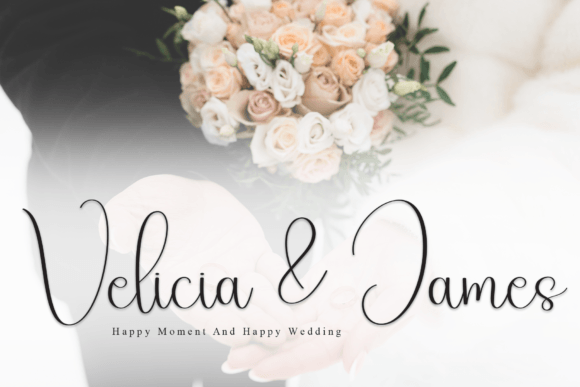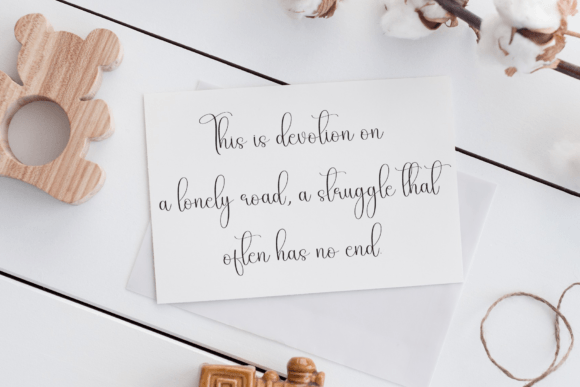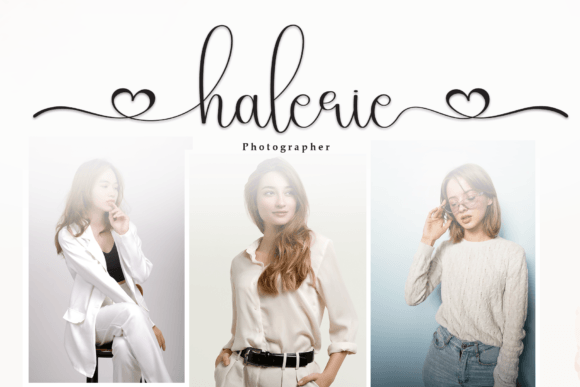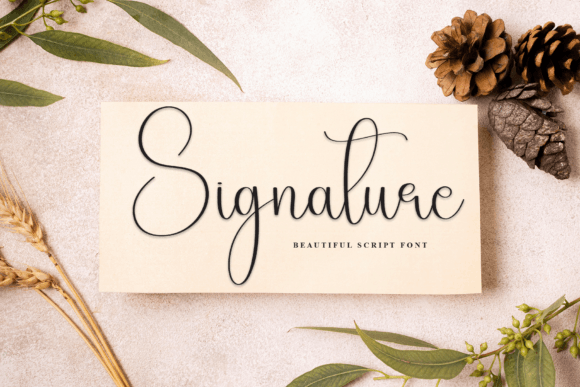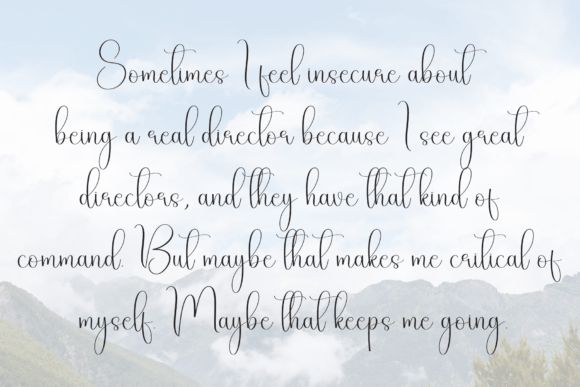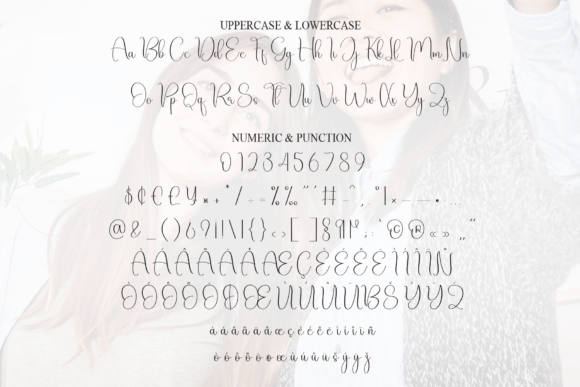
The Bestie Font: Elevate Your Designs with Elegance and Charm
Have you ever been in the middle of a design project, and suddenly, you’re stuck on finding the perfect font? I recall a recent experience where a client asked for a sophisticated yet personal touch for their branding. After scouring through numerous fonts, I stumbled upon the Bestie font, and it instantly became the perfect fit. In this article, we’ll dive into what makes Bestie a stylish handwritten script font that exudes elegance and charm.
A Personal Review: What I Love About Bestie
Bestie has quickly become one of my go-to fonts for various design projects. Here’s what I love about it:
• ✨ Elegant and flowing curves: Bestie’s delicate strokes bring warmth and creativity to any design.
• ✅ Versatile: Perfect for invitations, logos, branding, and more.
• 💫 Personal touch: Adds a sophisticated yet personal feel to your projects.
While Bestie is an excellent font, there are a few minor quirks to consider:
• ⚠️ Limited use in body text: Bestie is best used for headings or titles, as it may be challenging to read in large blocks of text.
• 🤔 Requires attention to spacing: To ensure optimal readability, you may need to adjust the spacing between letters.
The Story Behind Bestie: Designer Inspiration
Bestie was designed with the intention of creating a font that embodies elegance and charm. The designer aimed to craft a font that would add a personal touch to various design projects, from invitations to branding. With its flowing curves and delicate strokes, Bestie has become a popular choice among designers and crafters.
What type of projects is Bestie best suited for? Bestie is perfect for invitations, logos, branding, and any design project that requires a personal and sophisticated touch.
Is Bestie suitable for body text? Bestie is best used for headings or titles, as it may be challenging to read in large blocks of text.